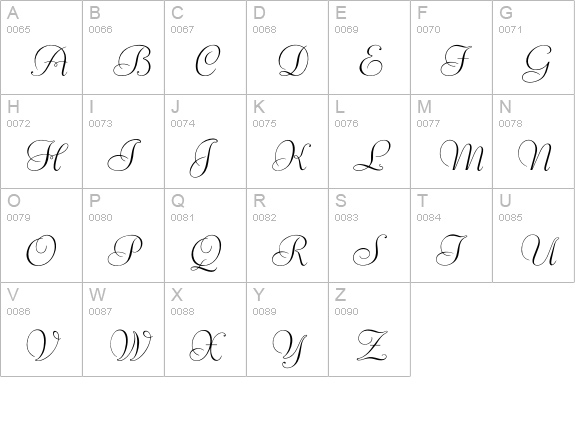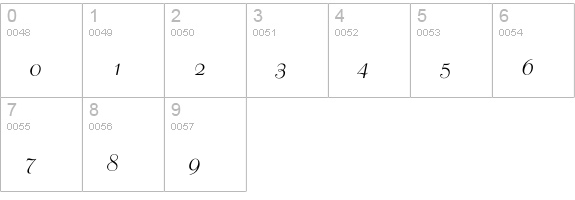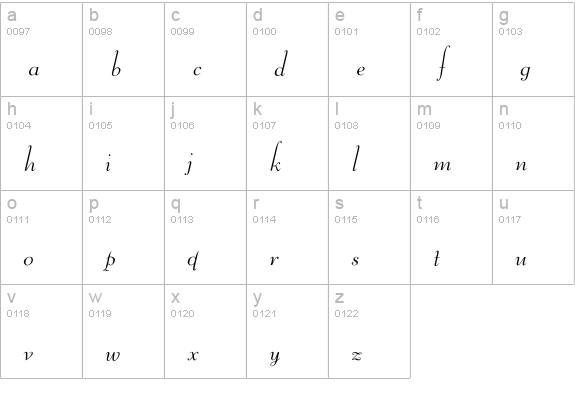
OPTILibertyFoundry Font Details
Introducing OPTILibertyFoundry font, a sleek and modern typeface that exudes confidence and sophistication. With its clean lines and elegant curves, this font is perfect for a wide range of design projects, from branding to editorial layouts. OPTILibertyFoundry strikes the perfect balance between professionalism and creativity, making it a versatile choice for both digital and print applications. One of the standout features of OPTILibertyFoundry font is its versatility - it can be used for headlines, body text, logos, and more, making it a valuable addition to any designer's toolkit. Whether you're working on a corporate brochure or a fashion magazine, this font will elevate your design and make a lasting impression on your audience. The best part? OPTILibertyFoundry font is completely free to download at FontsMarket.com. That's right, you can access this premium font without breaking the bank. So why wait? Elevate your design projects with OPTILibertyFoundry font today and make a bold statement with every word you write.